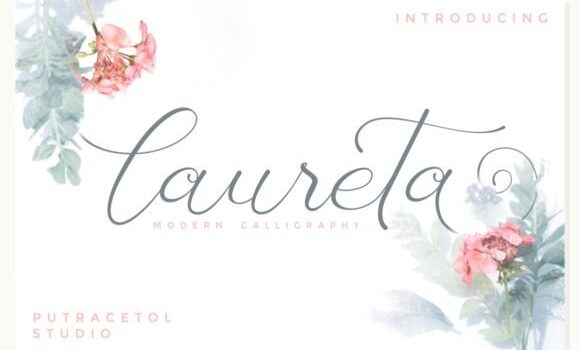
laureta
Laureta Font – Free Download Introduction to Laureta Font Laureta is a beautiful handwritten font with a timeless appeal. 📸 Preview Gallery 6 images 📌 Product Name Laureta Font 👤 Author putracetol 📂 Category Explore ⬇️ Download Laureta Font FREE